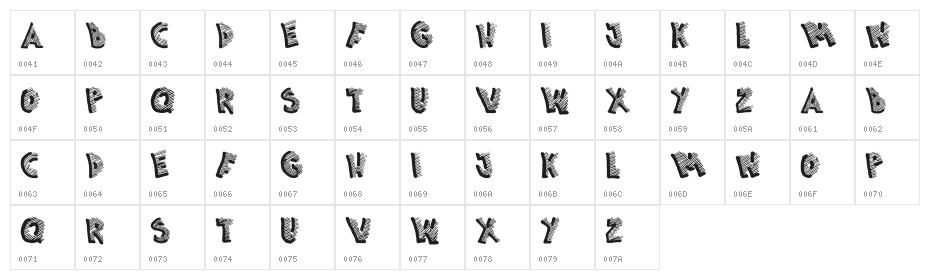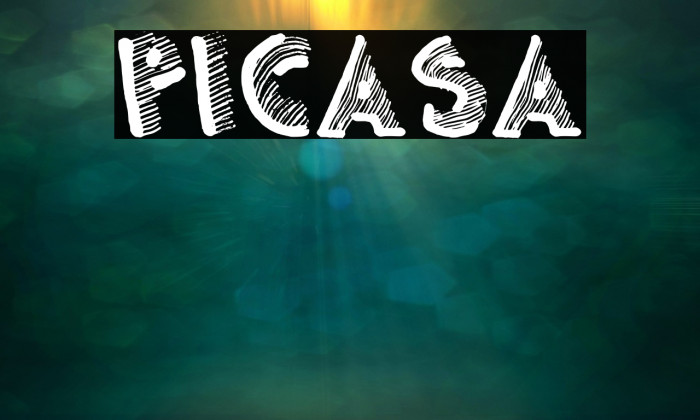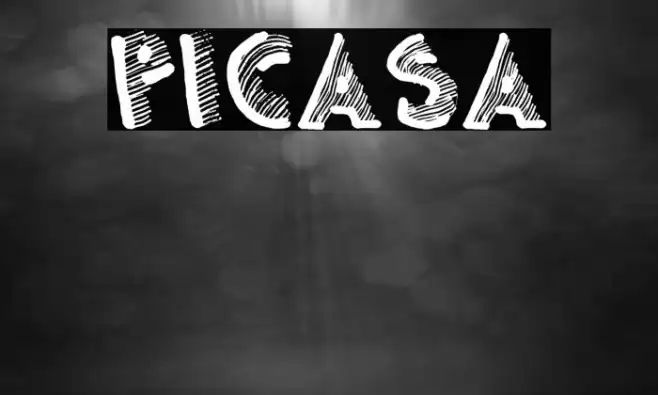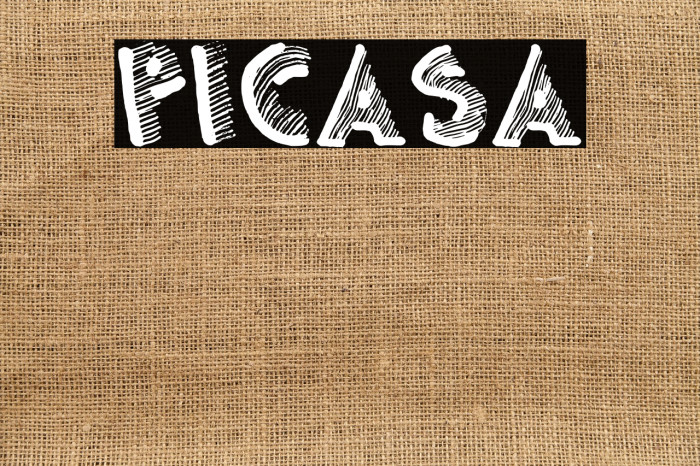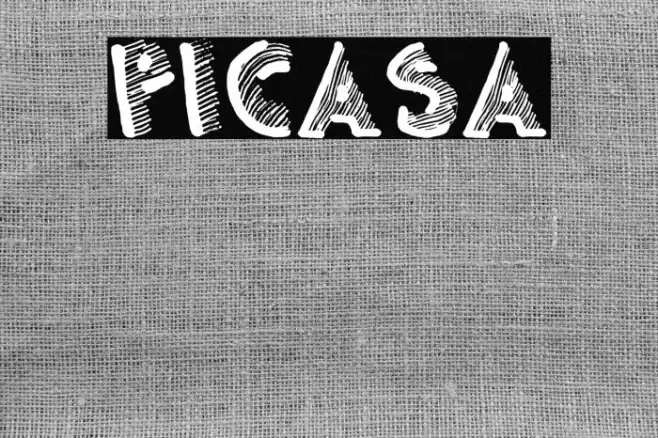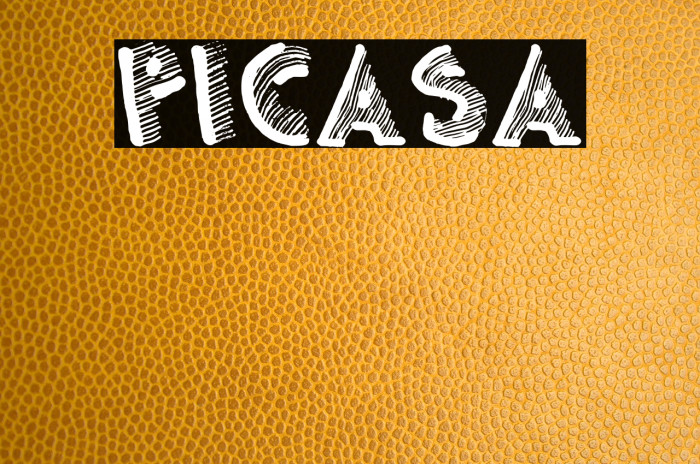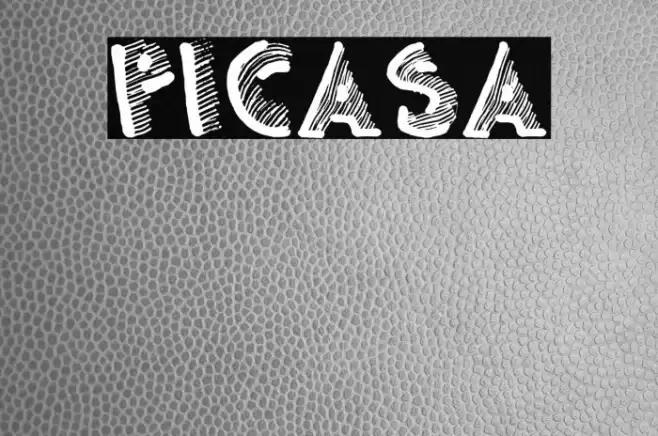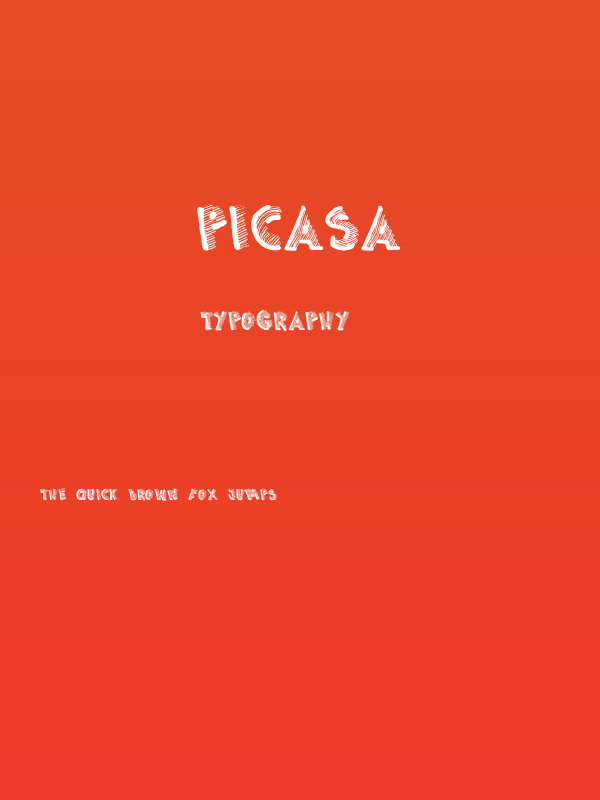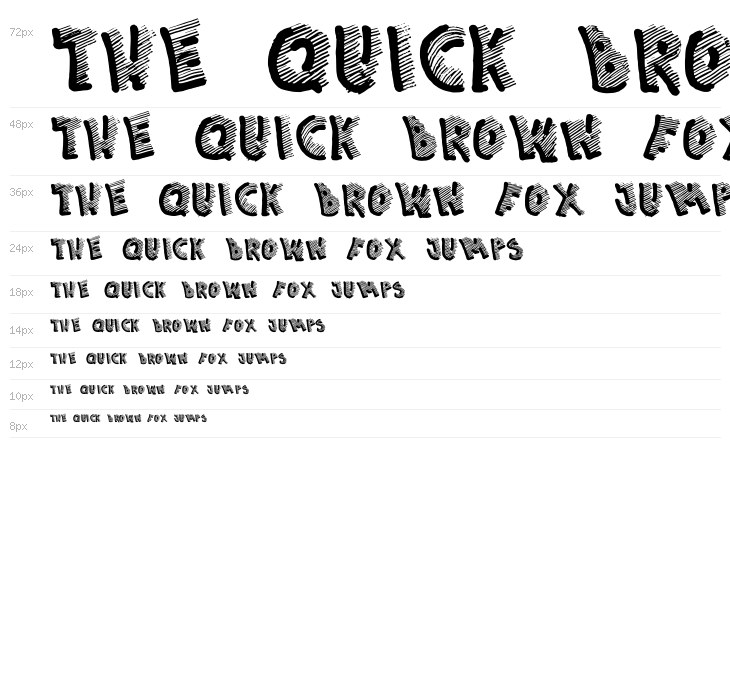
Picasa Font
Picasa Description
This font features a bold and dynamic style with a distinct 3D effect created by diagonal lines that give the impression of depth and movement. The uppercase letters are robust and eye-catching, making them ideal for attention-grabbing designs. The font's playful and energetic appearance is enhanced by the irregular, sketch-like strokes that add a hand-drawn feel. This unique style is consistent across the alphabet, providing a cohesive look that is both modern and artistic. The absence of lowercase letters and numbers suggests a focus on decorative and display purposes.
| Proposed Projects | Ideal for posters, headlines, logos, and any design requiring a bold, artistic touch. |